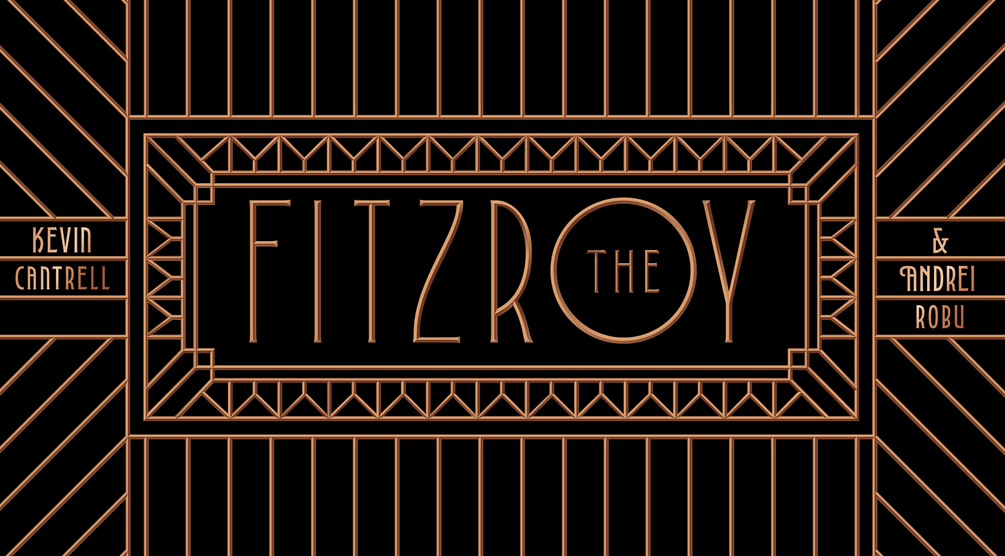
Fitzroy Display
Fitzroy Display was designed for The Fitzroy building designed by Roman and Williams and currently being constructed in New York. The name is taken from the Fitzroy Road that ran through West Chelsea in the late 20th century. Inspired by the iconic art deco style in the zeitgeist of New York architecture, Fitzroy Display offers a modern take on deco by combining gentle curves and edges inspired by art nouveau.
Ideal for luxury, retail, architecture, fashion or boutique brands in large or small application. Fitzroy suffuses with opulence and gravitas from a begone era made modern once again.
Designed by Kevin Cantrell and Andrei Robu